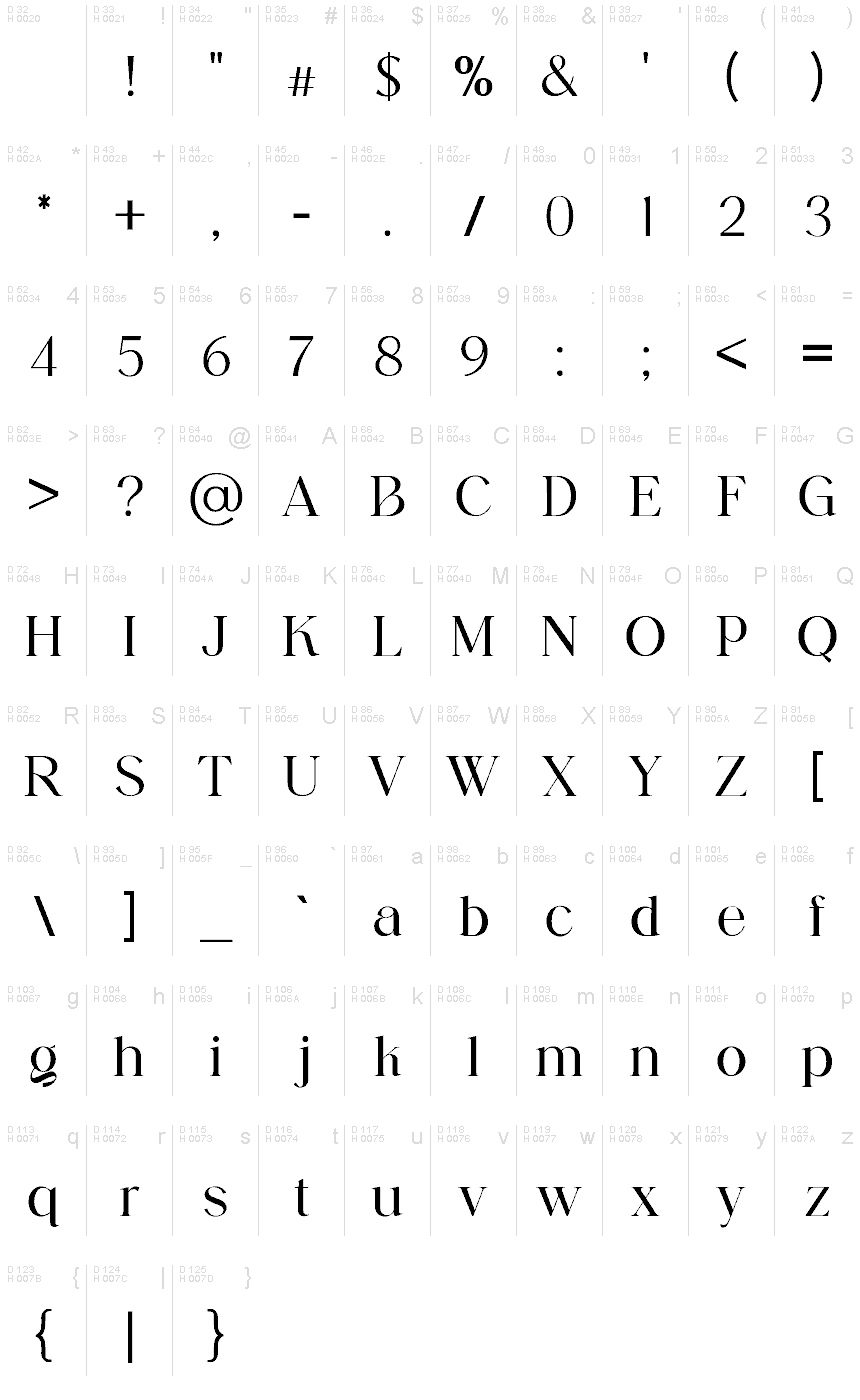
ROUGHNECKS Regular
Roughnecks font is a free serif font designed by UI Creative. The elegant creation masterfully blends classic and modern styles to produce refined results every time. It uses thin strokes which distinctly and elegantly present each character, a choice most suitable for large sizes where every detail can be appreciated. Yet even when it’s used for smaller texts, the sophisticated design still holds its quality without losing the authoritative presence of each letter.
This is simply what Roughnecks was intended to do: to transform every title or presented text, allowing users with new projects including branding designs, newspapers/magazines, websites, blog titles, posters/ads/flyers, social media posts (Facebook covers and Instagram posts), or book designs whose readers will not only enjoy reading but have their attention fully set on the storyline thanks to the stylish yet comfortable font.